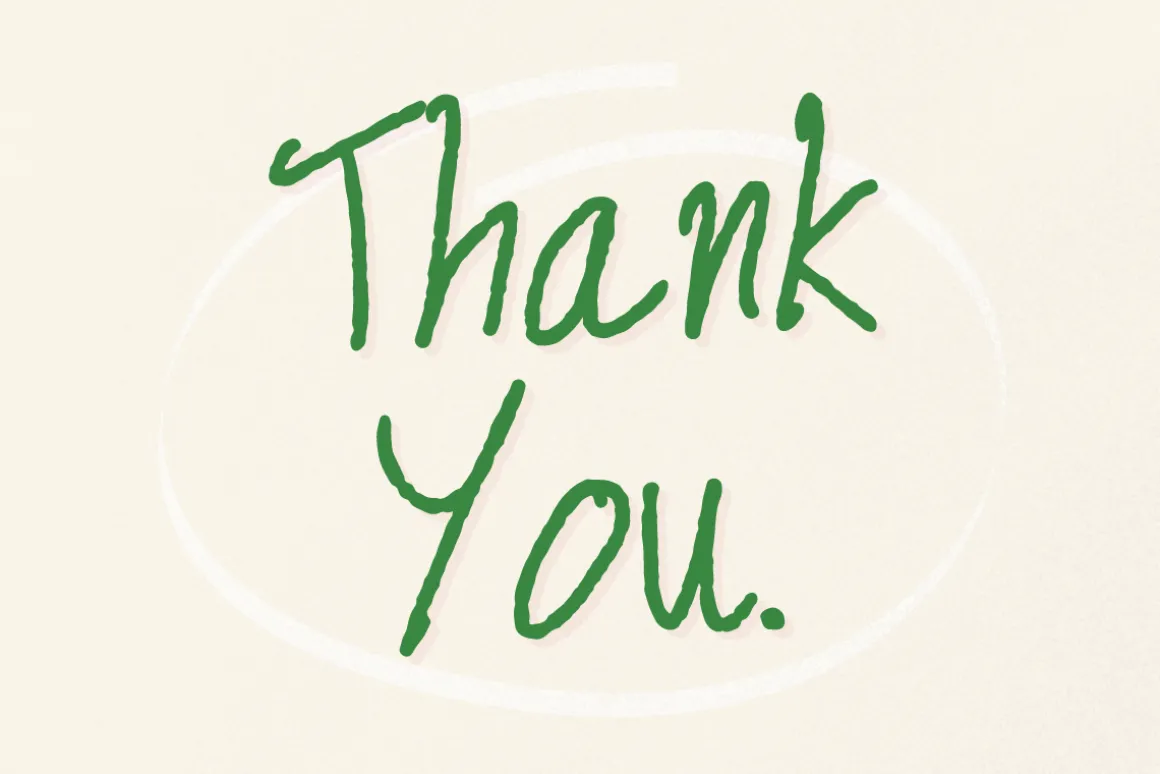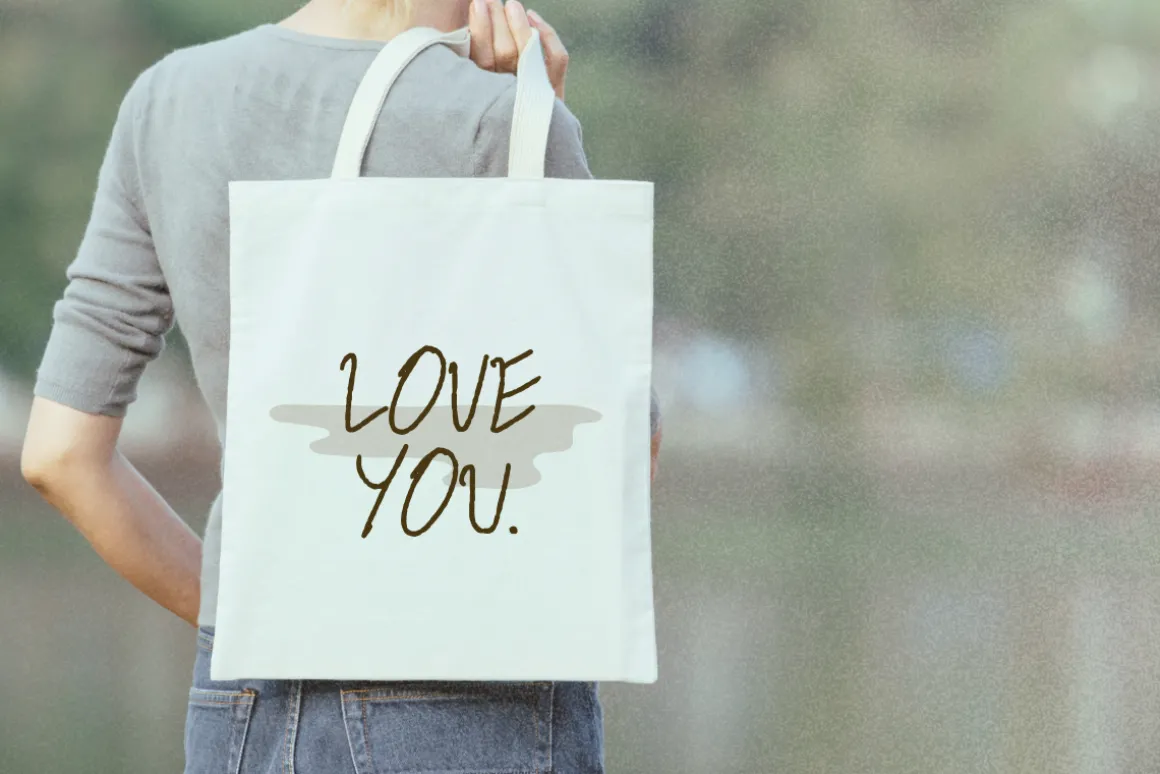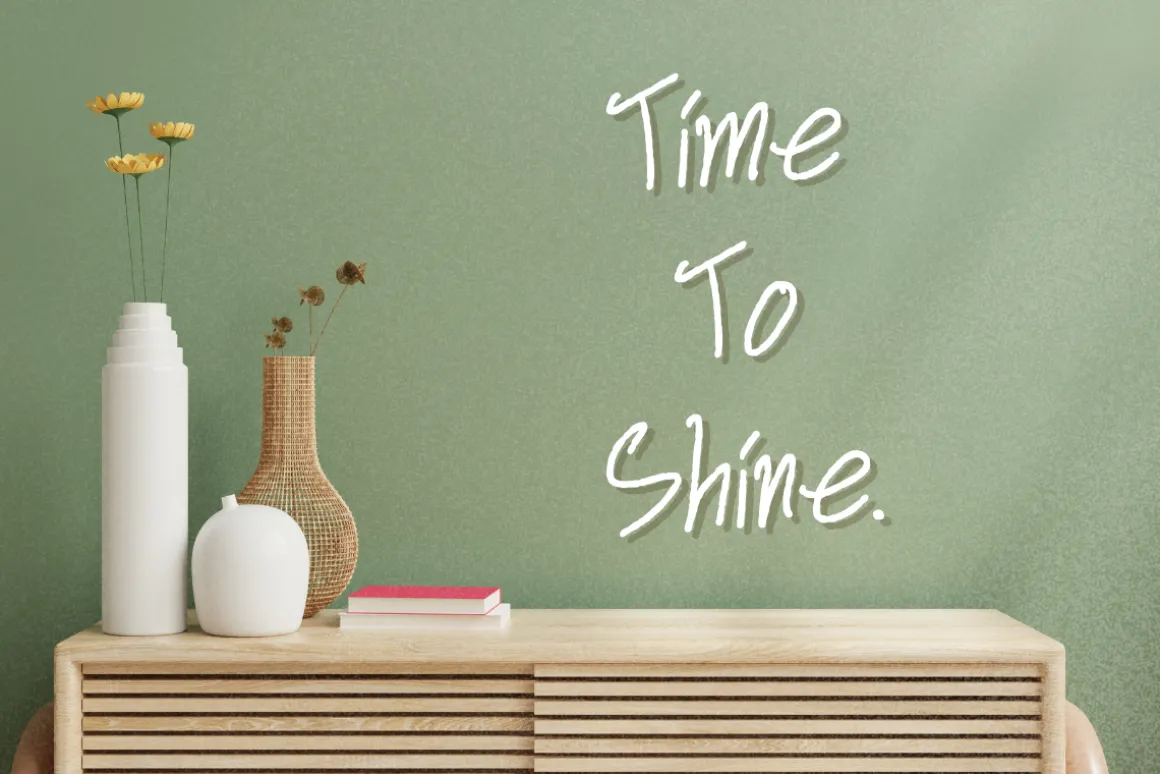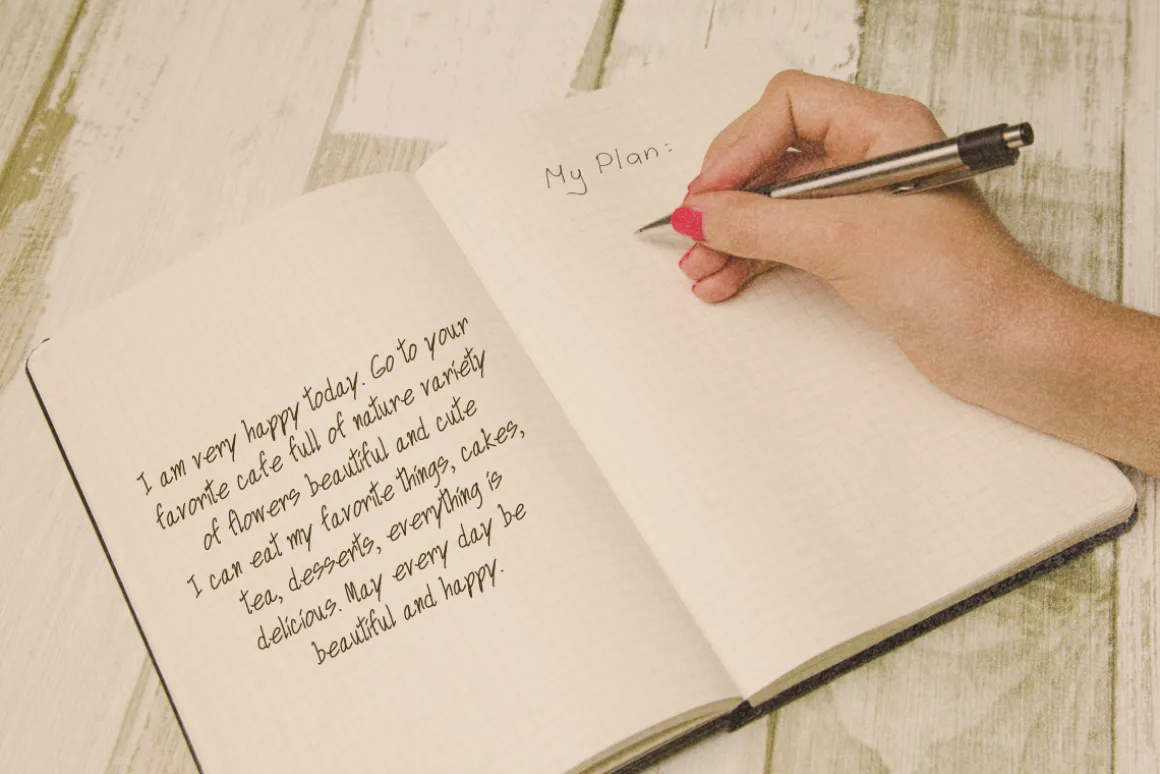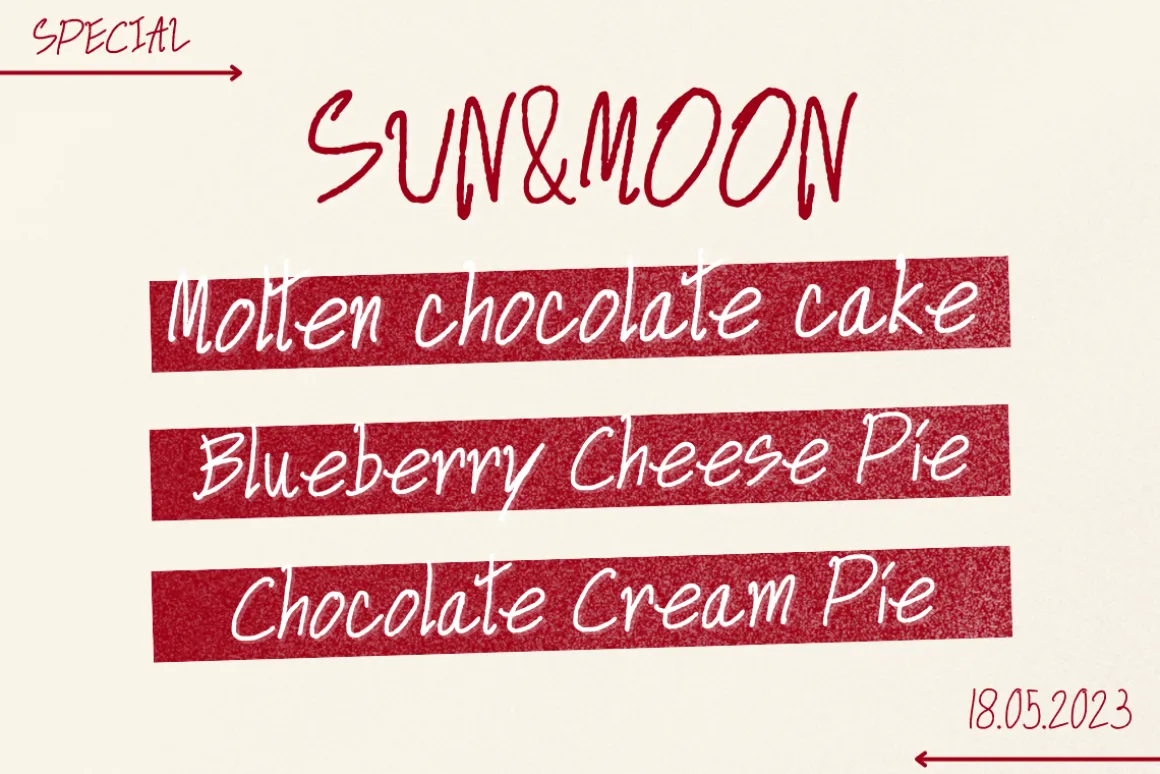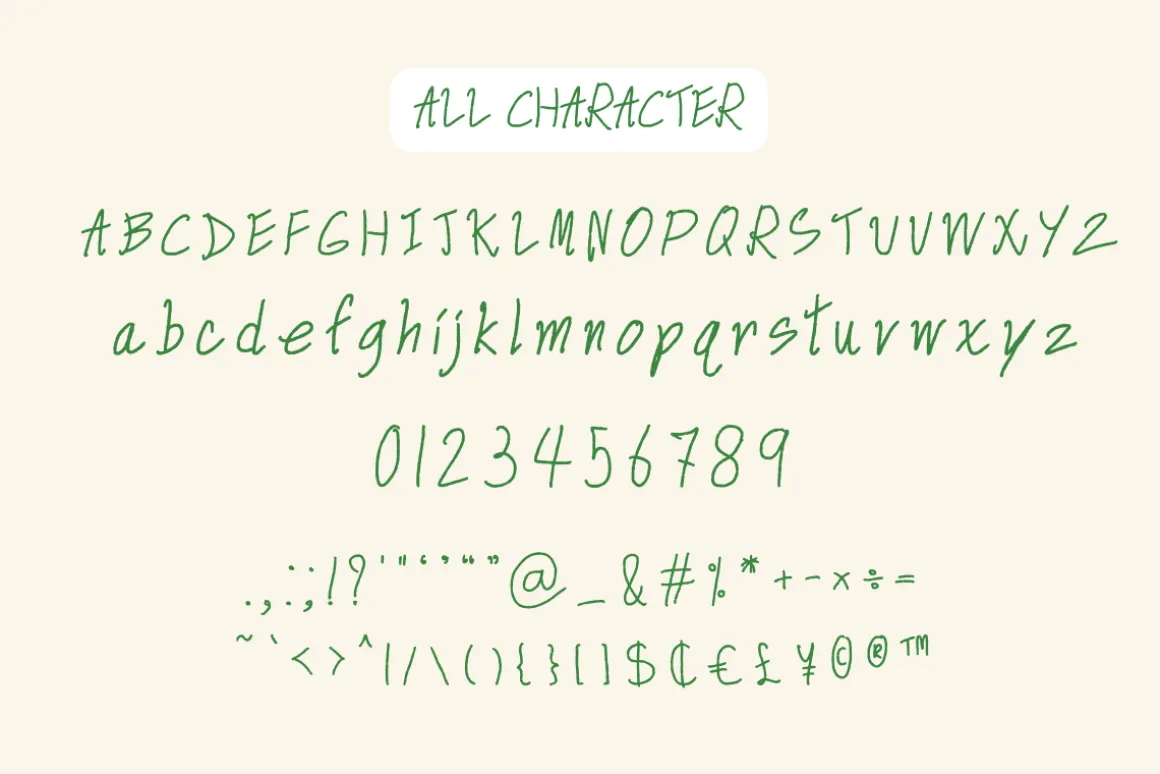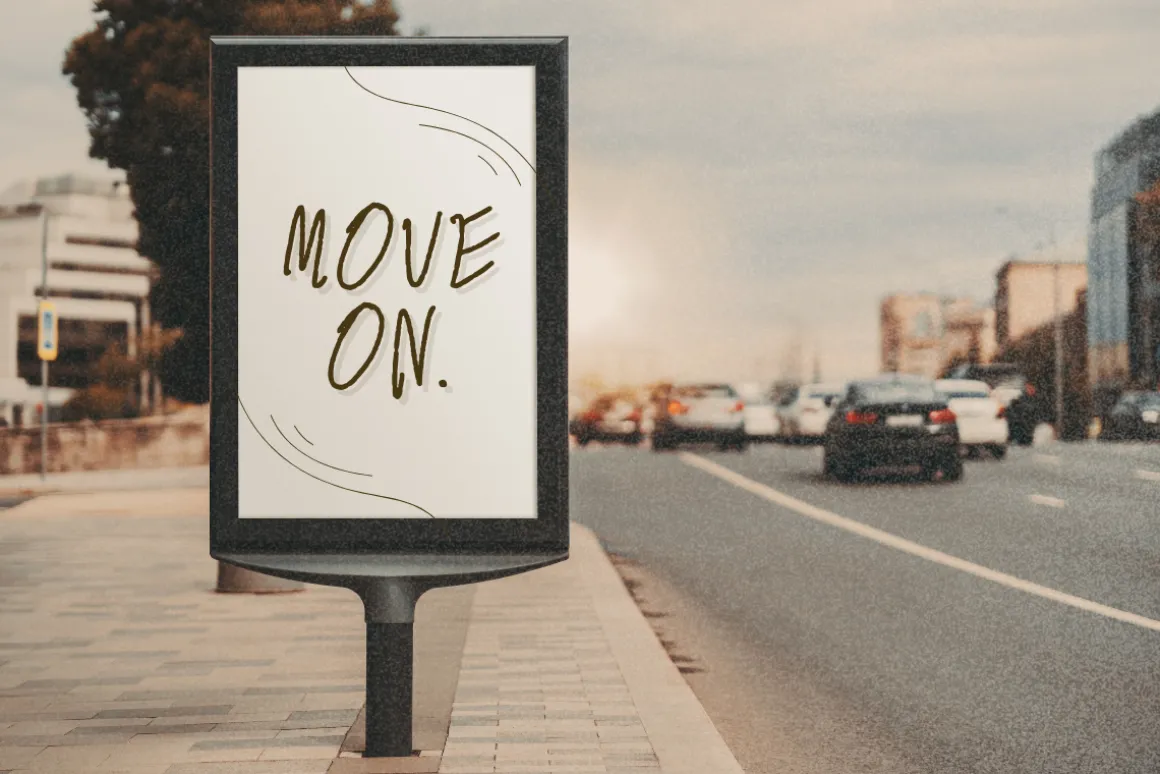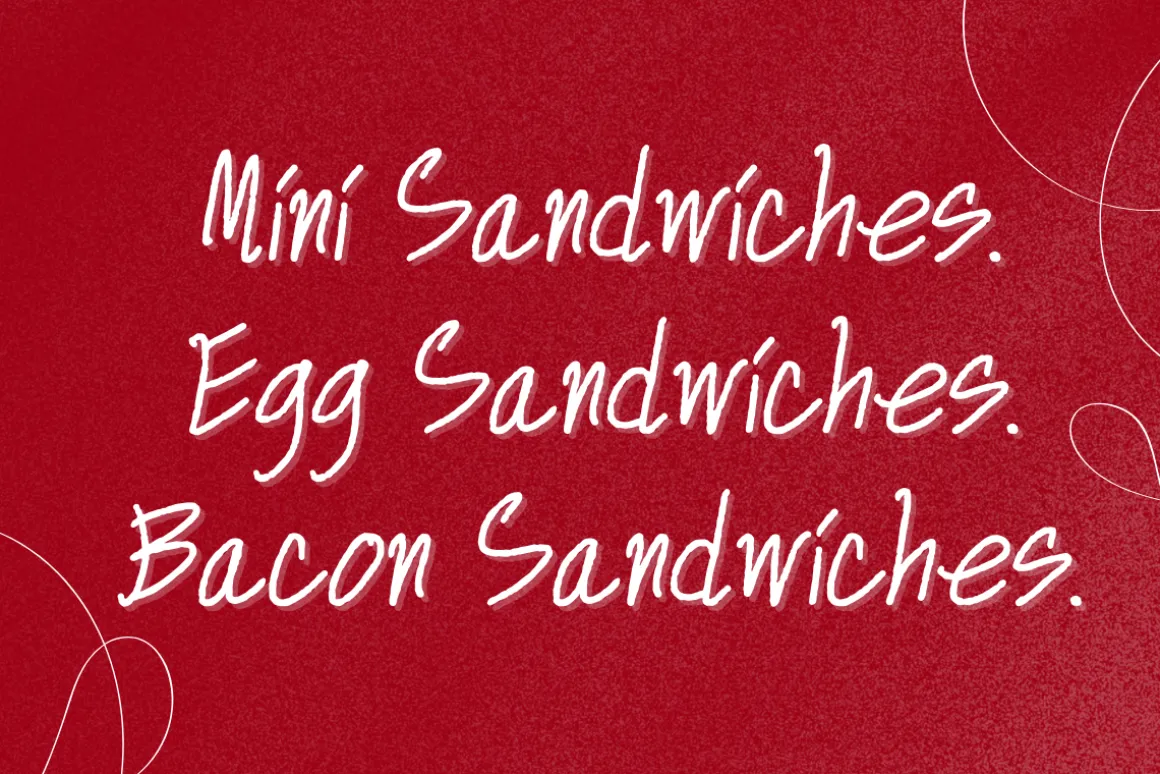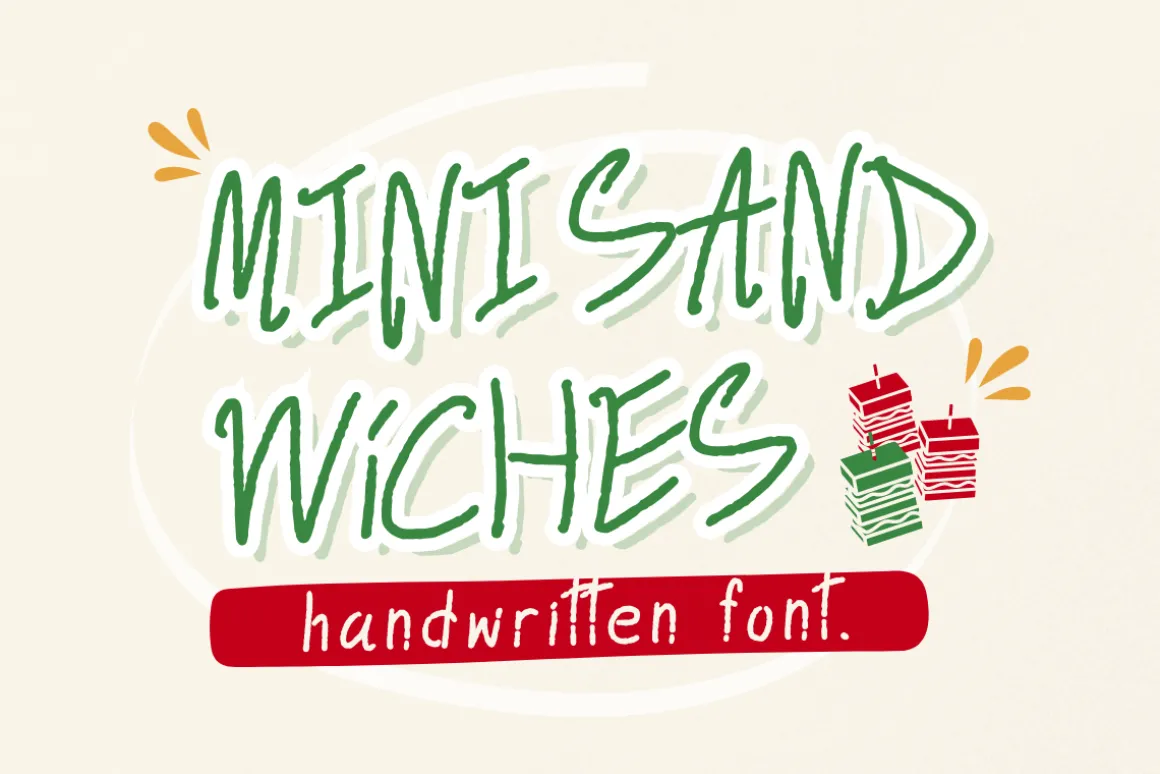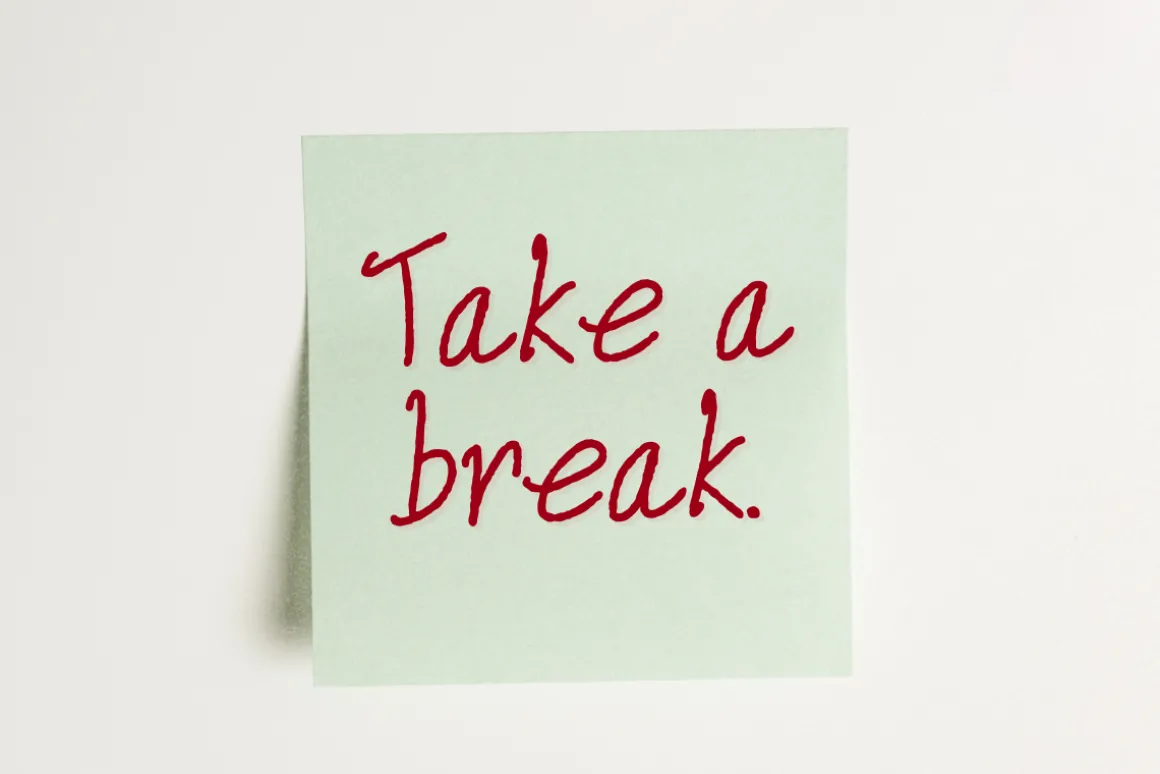
Mini Sandwiches – Handwriting Font
Mini Sandwiches is a simple and cute decorative font that can be used to create a variety of works. Versatile, it can be used in a variety of applications from crafts for kids, teachers, to greeting cards.